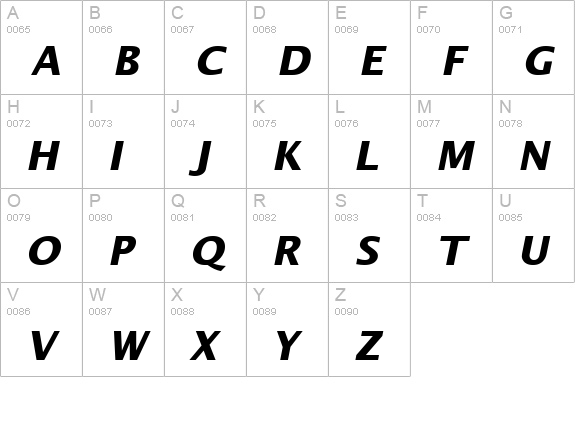
Insight Sans SSi Bold Italic Font Details
Insight Sans SSi Bold Italic is a strong, high-contrast, italic variant in the Insight typeface family \xE2\x80\x94 well suited to headlines, attention-grabbing titles, and strong calls-to-action.
The Insight Sans SSi Bold Italic font is a stunning and visually captivating typeface that effortlessly combines boldness and elegance. Its sleek and modern design exudes confidence and sophistication, making it the perfect choice for any project that seeks to make a bold statement. With its italicized form, the Insight Sans SSi Bold Italic font adds a touch of dynamic flair to any text, making it stand out and grab attention. Whether used in headings, titles, or even as a standalone design element, this font is guaranteed to leave a lasting impression. But what truly sets the Insight Sans SSi Bold Italic font apart is its accessibility. It is freely available to download at FontsMarket.com, making it a valuable asset for designers, creators, and enthusiasts alike. This font offers a unique combination of style and accessibility, allowing anyone to elevate their designs without any constraints. The Insight Sans SSi Bold Italic font is not only visually pleasing but also highly legible, ensuring that your message comes across clearly and effectively. Its versatility allows it to be used in various design projects, from branding and advertising to web design and print materials. In summary, the Insight Sans SSi Bold Italic font is a captivating and versatile typeface that effortlessly combines boldness and elegance. Its italicized form adds a touch of dynamic flair, while its accessibility makes it a valuable asset for anyone in the design community. With its timeless appeal and freely available download at FontsMarket.com, this font is a must-have for those seeking to make a bold statement in their designs.